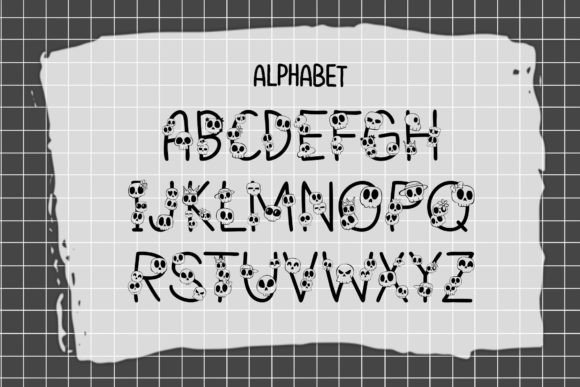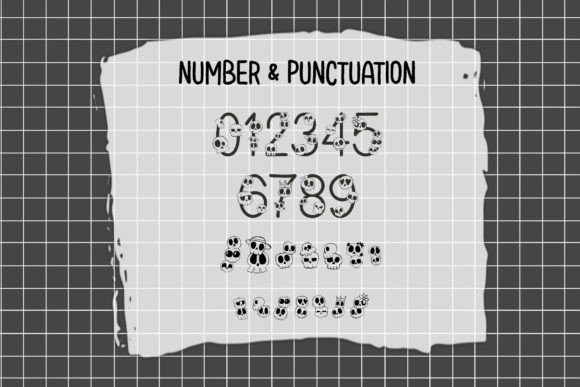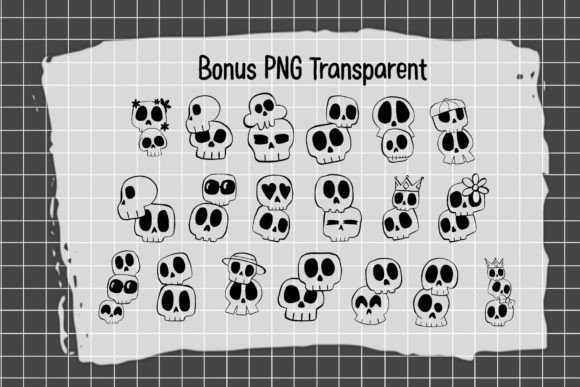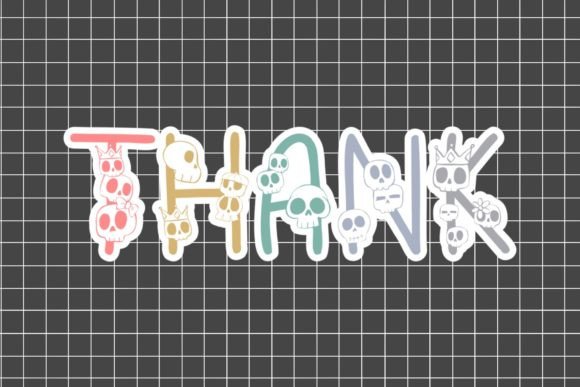
Meet Your New BFF in Spooky Typography
Have you ever stared at a blank design canvas, waiting for inspiration to strike? It’s like the creative universe is silently whispering, “Come on, give me something good!” And then, it happens – a spark of genius ignites, and you know exactly what you want to create. For designers, that ‘aha’ moment is music to our ears. It’s what drives us to push boundaries and bring our imagination to life.
That’s exactly what Hello Skull Font does – it brings a touch of spooky elegance to your designs. This versatile font is perfect for crafting logos, branding, social media graphics, and DIY projects that scream “I’m a little bit quirky.” Whether you’re working on a Halloween-themed campaign or a steampunk-inspired blog, Hello Skull Font is your new go-to companion. With its unique blend of sophistication and spookiness, it’s a valuable addition to any designer’s toolkit.
Hello Skull Font Key Features
- Character Set: This font features a comprehensive character set, including uppercase and lowercase letters, numbers, punctuation, and special characters, making it suitable for a wide range of typographic applications.
- Unique Characteristics: The font’s distinctive skull design elements, such as the skull-shaped letterforms and decorative motifs, add a touch of edginess and playfulness to any design project.
- Font Style: Hello Skull Font comes in a single style, making it easy to use and maintain consistency across various design elements.
Hello Skull Font Review
I recently had the chance to work with the Hello Skull Font, and overall, I’m impressed. ✨ The font’s unique design and bold personality make it perfect for projects that need a bit of edginess. The skull motif is well-executed, and the subtle details add a level of sophistication.
One of the standout features of the font is its versatility. ✨ It’s suitable for a wide range of projects, from punk rock band merchandise to horror-themed video games. The font’s flexibility is a testament to its well-designed nature.
- ⚠️ The font may not be ideal for projects that require a more conservative or professional tone. The skull motif can be off-putting to some audiences.
- ⚠️ The font’s bold nature can make it difficult to read in smaller sizes or at a distance.
- ⚠️ The font may not be suitable for projects that require a high level of legibility, such as academic or technical writing.
Overall, the Hello Skull Font is a solid choice for designers who want to add some attitude to their projects. While it may not be suitable for every project, it’s definitely worth considering for the right client or application.
The Hello Skull Font is ideal for designs that require a bold, edgy look. Use it for:
– Horror-themed designs
– Punk or rock music promotions
– Grunge or alternative fashion branding
– Creepy or spooky invitations and events